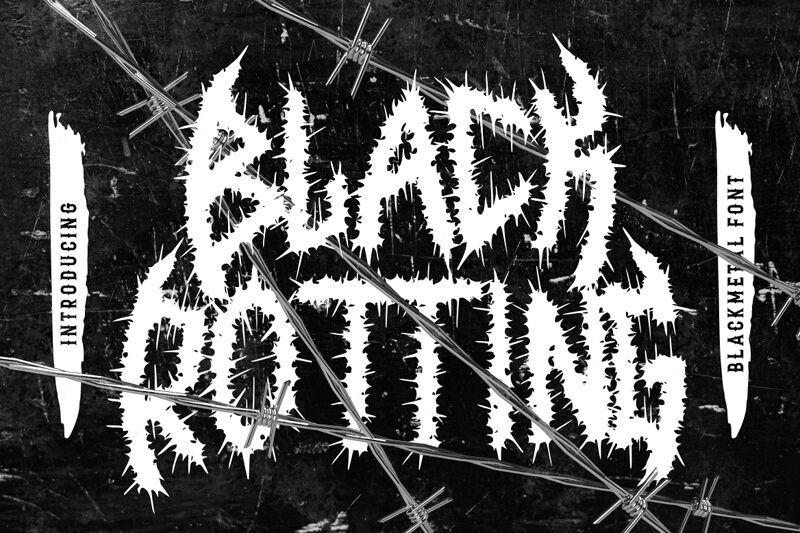
Black Rotting font family designed by PutraCetol Studio captures an unsettling Gothic atmosphere with spiky and dark grungy letters. This font family contains 2 font styles, each with an aggressive character, a chaotic arrangement, and an intense design. The elements of this character font make it a convenient choice for any gothic or horror projects, whether it’s prints or online projects.
The true gothic nature of this font family makes it ideal for use in poster designs, labels, branding designs, social media platform posts, and blog banners. It can be used to present horror movie titles, thriller book covers, or music album covers for rock and metal bands. Other suggestions include sports gear for extreme sports, merchandise designs, and artistic projects.